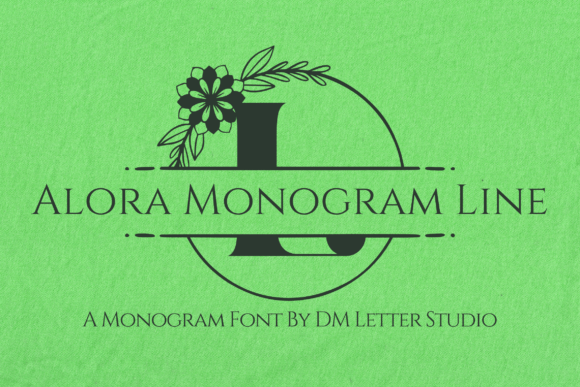
The Art of Personalized Design: Elevating Your Creations with Alora Monogram Line Font
As a designer, there’s nothing quite like the thrill of bringing a client’s vision to life. You’ve spent hours pouring over inspiration, sketching out ideas, and refining your concept until it’s nothing short of perfection. But then, it hits you – the perfect font to take your design to the next level. For many of us, that moment comes when we discover the Alora Monogram Line Font, a stunning typeface designed specifically for creating unique monograms, logos, and personalized branding.
This elegant font is more than just a pretty face – it’s a valuable tool for designers looking to add a touch of sophistication and class to their projects. With its refined letterforms and intricate details, the Alora Monogram Line Font is perfect for wedding invitations, luxury branding, stationery, and custom crafts. Whether you’re designing a high-end logo or a one-of-a-kind keepsake, this font is sure to elevate your creations and leave a lasting impression.
Alora Monogram Line Font Key Features
- Font Family: Alora Monogram Line
- Character Count: 200+ unique characters, including uppercase and lowercase letters, numbers, and special symbols.
- Unique Characteristics: Hand-drawn design, elegant and sophisticated feel, making it perfect for luxury branding, invitations, and special occasions.
Alora Monogram Line Font Review
I recently had the chance to work with the Alora Monogram Line Font, and I’m excited to share my honest review with you. ✨ One of the things that stands out about this font is its unique and elegant design. It’s perfect for creating a sophisticated and high-end look in your designs.
Here are some of the things that work well with the Alora Monogram Line Font:
- ✨ Beautifully crafted monogram lines that add a touch of luxury to your designs.
- ✨ Versatile and can be used for a variety of projects, from weddings to corporate branding.
- ✨ Well-suited for digital and print applications.
However, I did encounter a few limitations with the font:
- ⚠️ Limited character set, which may not be suitable for projects that require a wide range of characters.
- ⚠️ Not ideal for small text sizes, as the lines can become difficult to read.
Overall, I’m impressed with the Alora Monogram Line Font, but it’s essential to be aware of its limitations. With careful planning and selection, this font can add a touch of elegance to your designs.
Tips for Getting the Most Out of Alora Monogram Line Font
Use Alora Monogram Line Font to create unique and personalized monogram designs.
Combine Alora Monogram Line Font with other design elements to create visually appealing compositions.